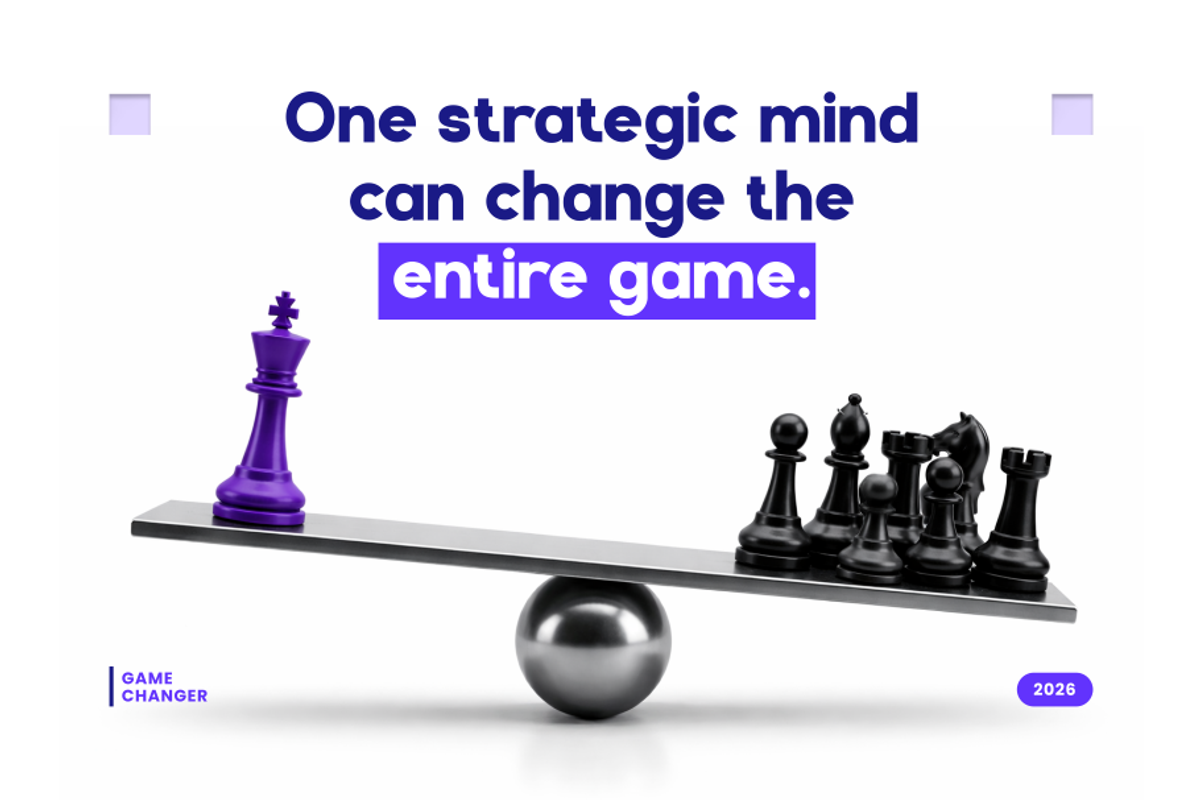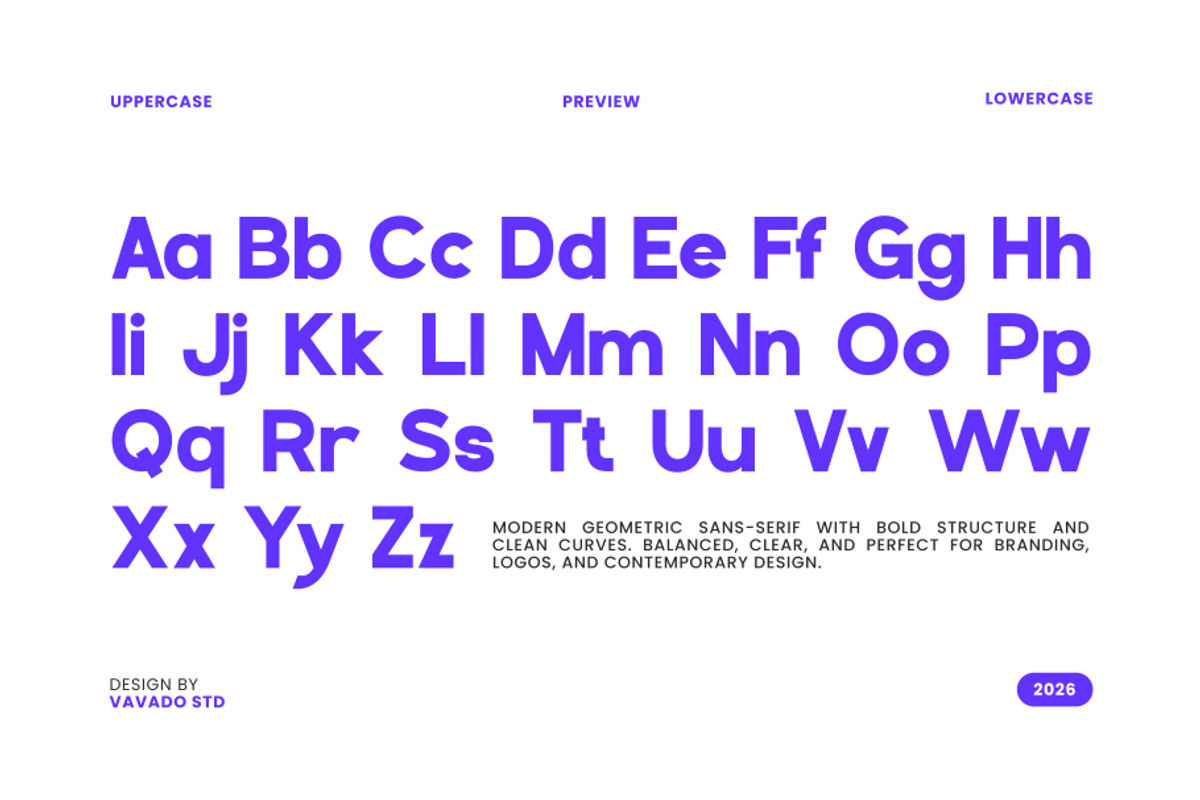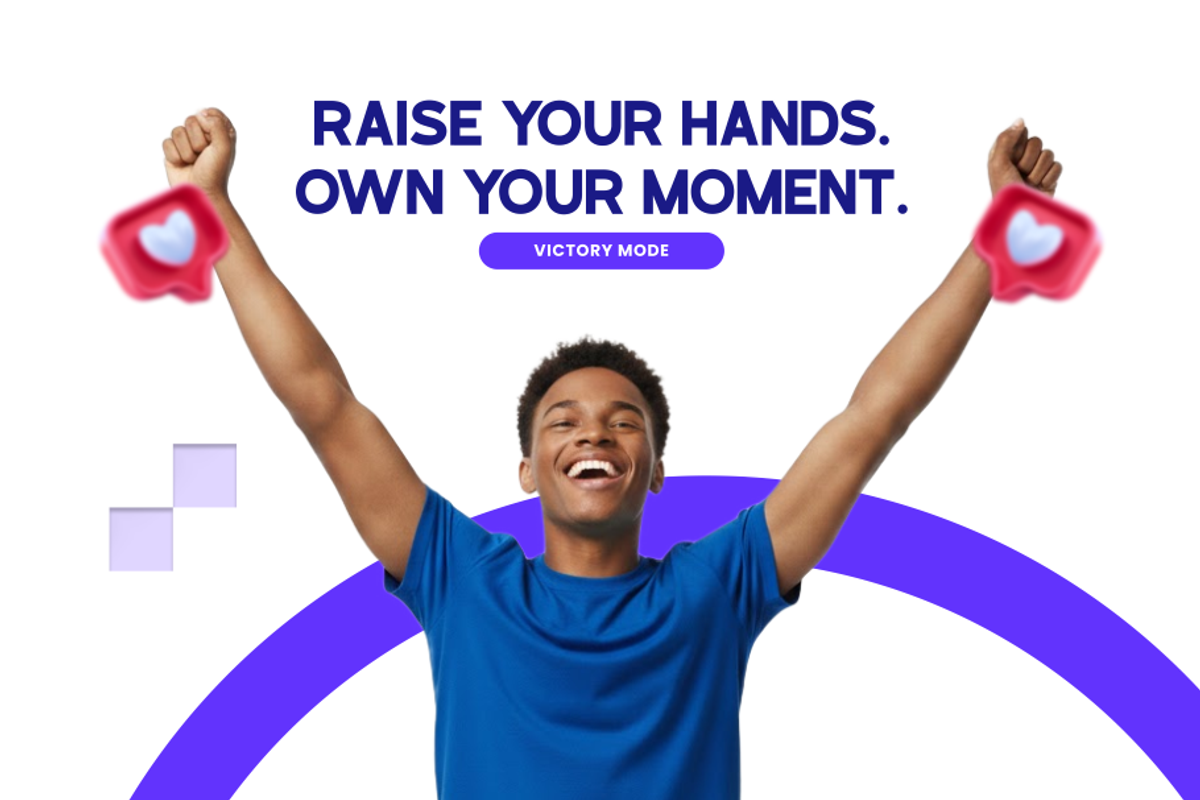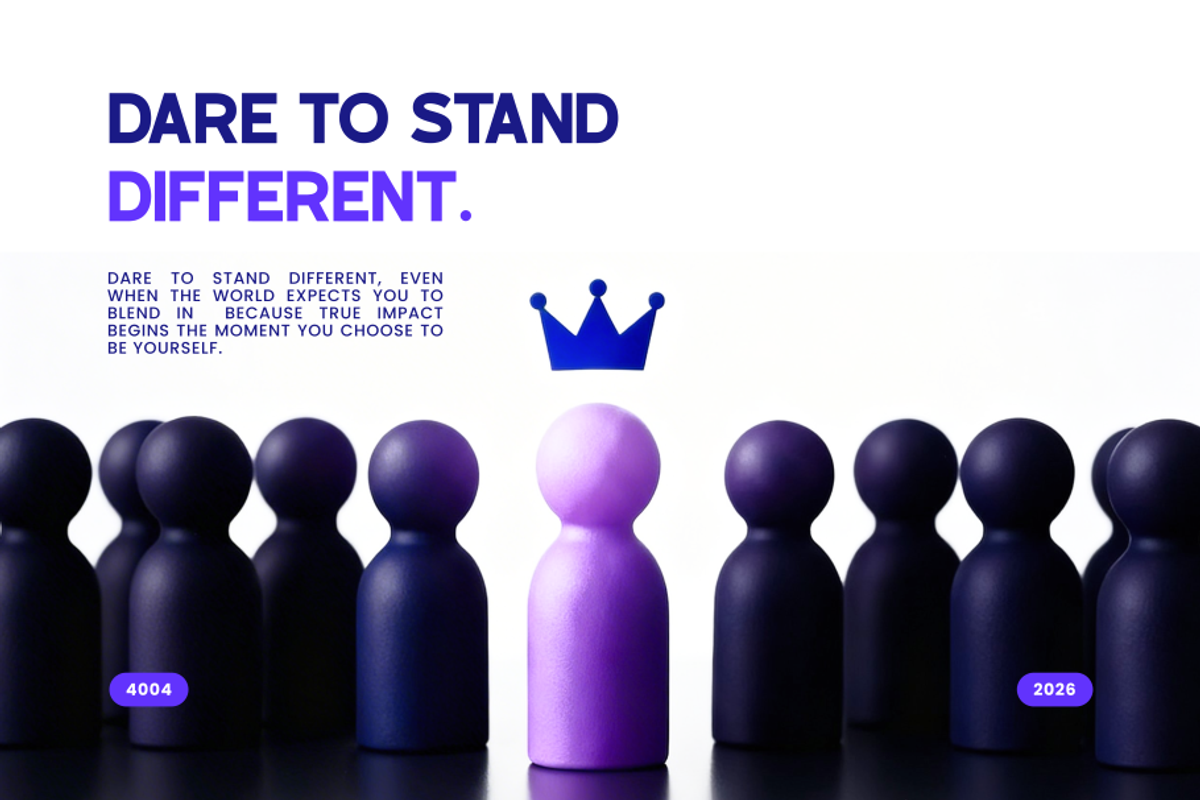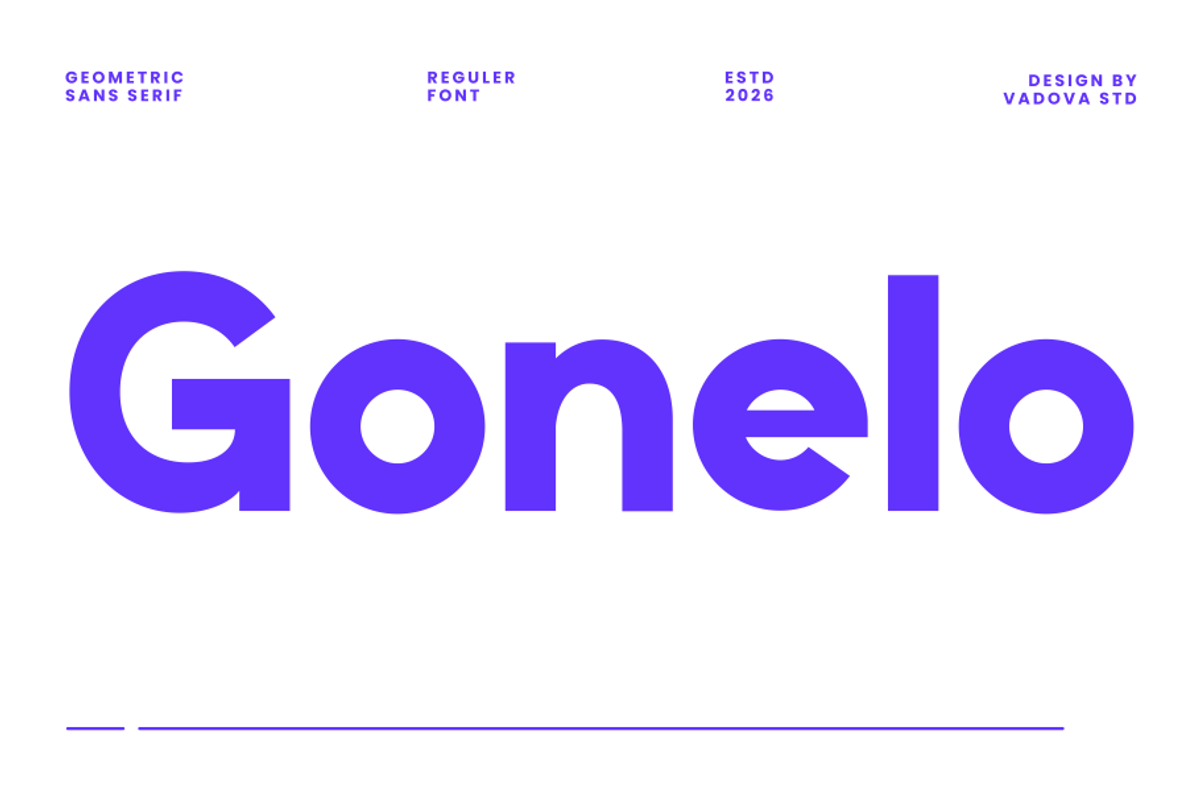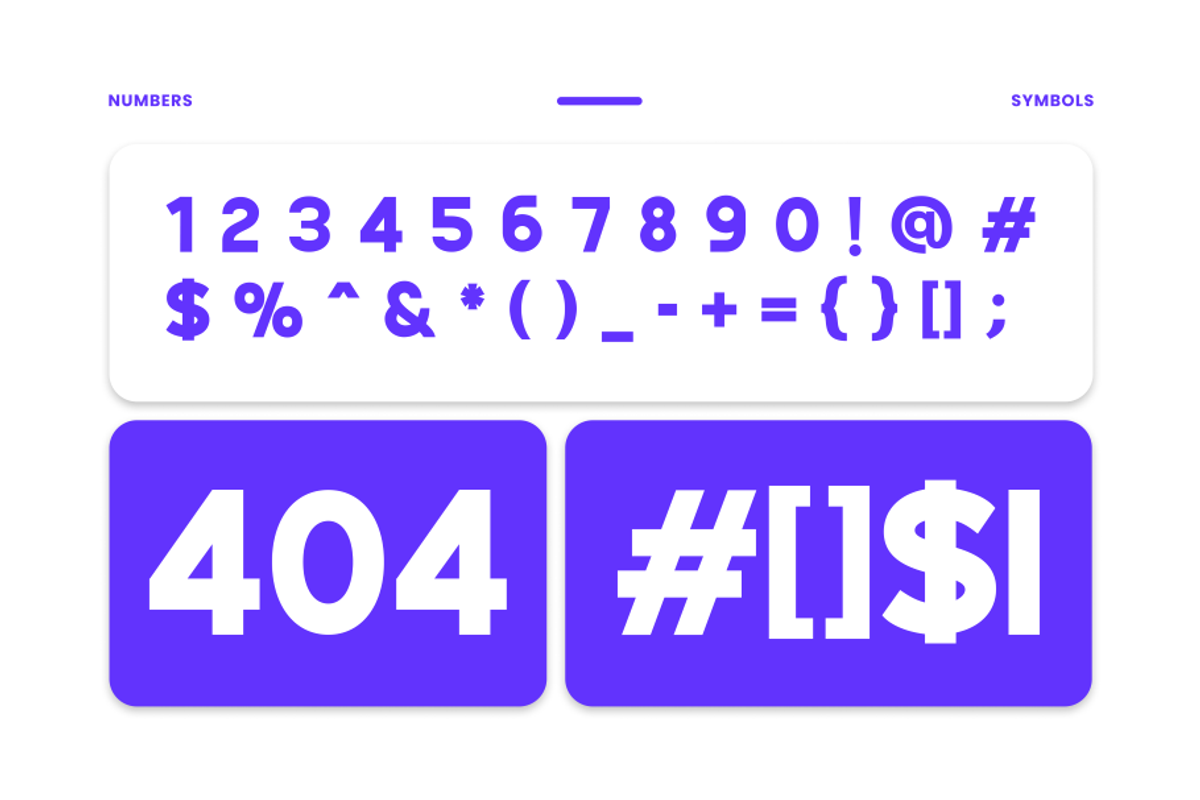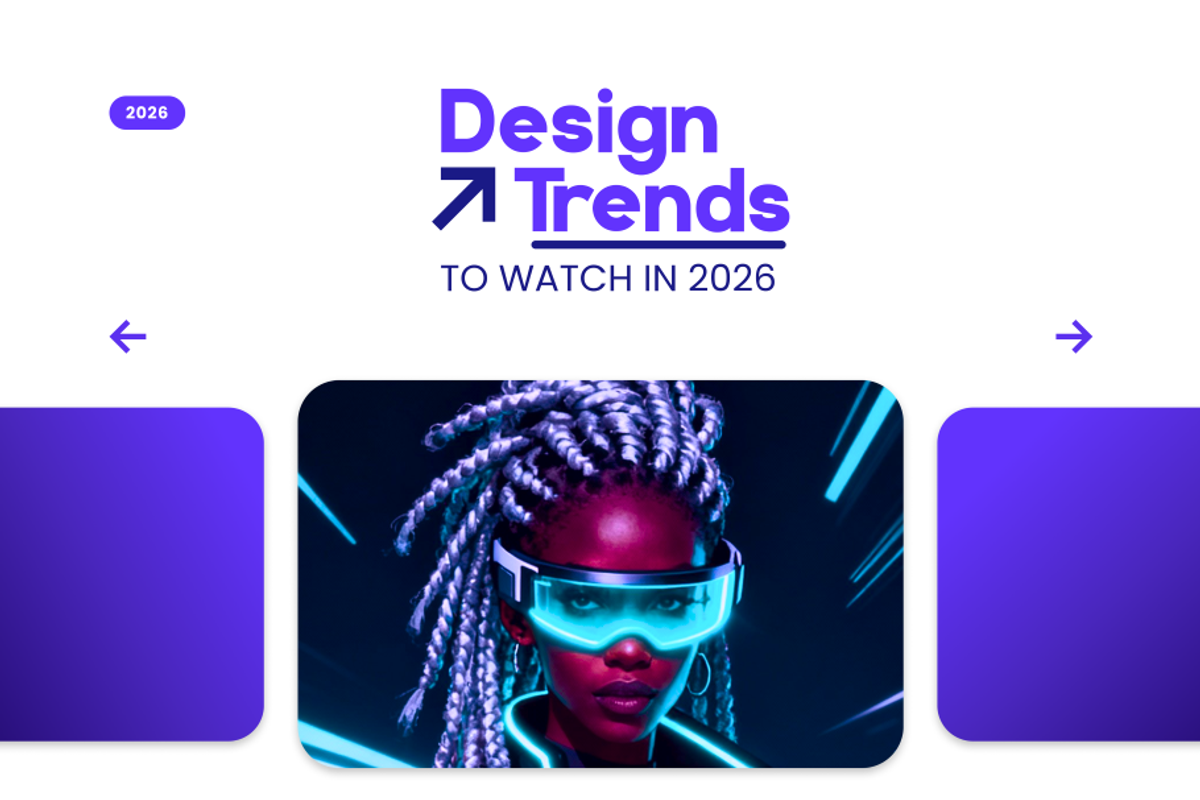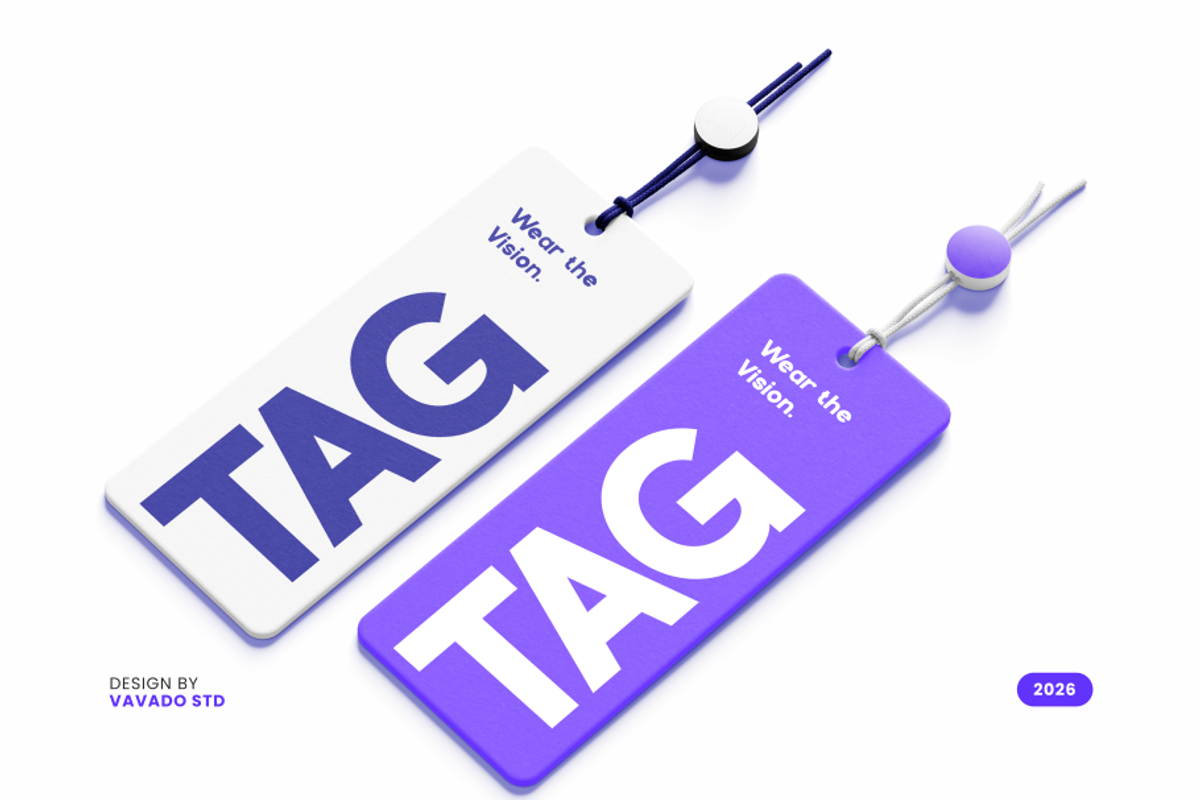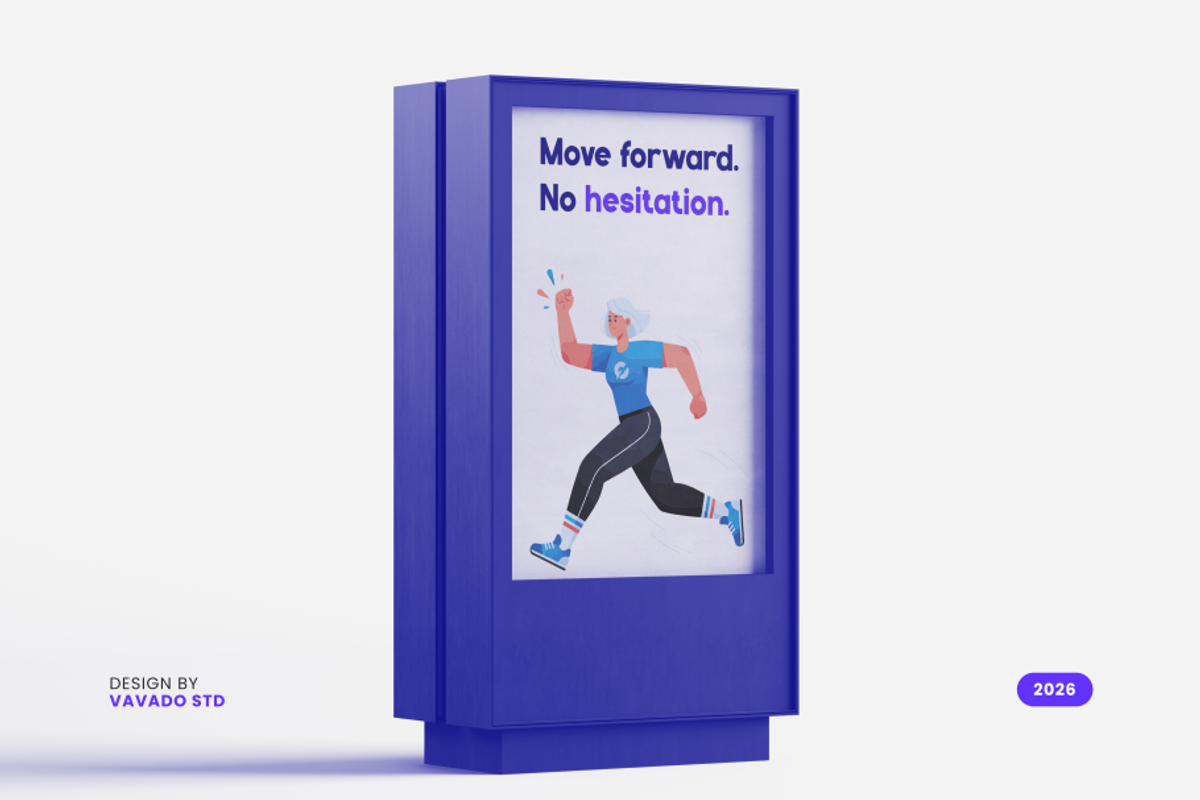
Gonelo Geometric Sans Serif Font
Gonelo is a modern geometric sans serif typeface designed with bold structure, clean curves, and balanced proportions. Its minimalist and contemporary style makes it highly versatile for modern branding, technology interfaces, editorial layouts, and digital design projects. The font features a strong geometric foundation combined with smooth rounded edges, creating a professional and approachable appearance.
Gonelo is perfect for modern design projects that require clarity, structure, and professional aesthetics. Its geometric construction makes it ideal for branding, logos, technology interfaces, startup identities, editorial layouts, and digital marketing materials. The font works exceptionally well in both print and digital environments where modern visual communication is essential.
- Bold geometric sans-serif structure with clean and modern proportions
- Smooth circular shapes combined with precise straight lines
- Minimalist letterforms that create a strong contemporary presence
- Consistent stroke weight for a balanced and professional look
- Optimized spacing for clear readability in branding, UI, and display typography
- Brand identity and logo systems for modern startups and tech companies
- UI/UX interfaces, dashboards, and digital product design
- Bold headlines for websites, posters, and advertising layouts
- App design, tech branding, and futuristic visual identities
- Social media graphics and contemporary marketing materials
Create powerful modern design with Gonelo and its bold geometric style